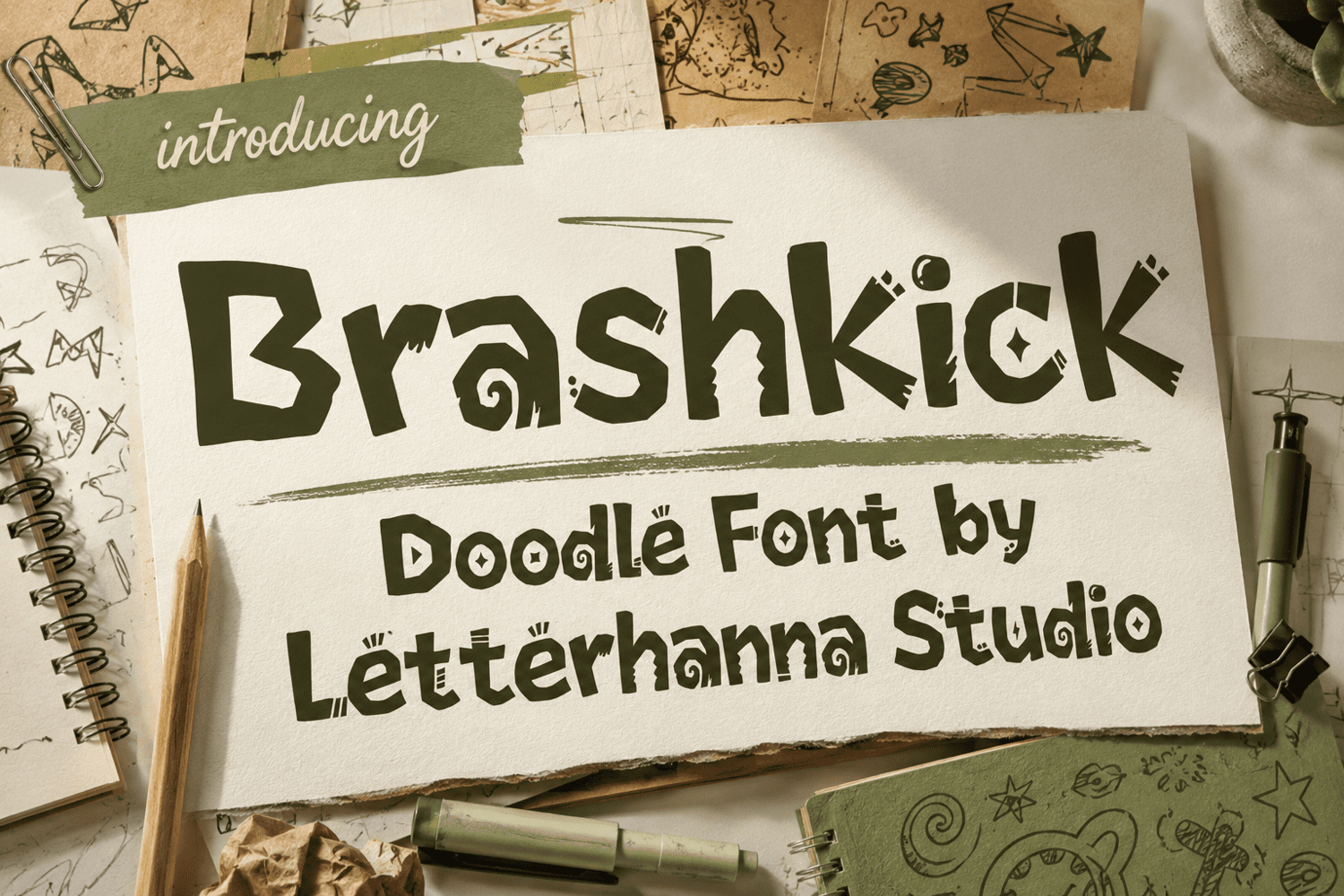
Brashkick Doodle Font: Bold, Rough, and Playfully Unusual
What happens when ordinary letters stop behaving like ordinary letters?
You get Brashkick.
Brashkick is an expressive Doodle Font created for designers who want typography with attitude. Its bold, irregular letterforms combine rough geometry, hand-drawn imperfections, quirky details, and unexpected shapes to create a typeface that immediately grabs attention.
It doesn't look like it came from a perfectly measured grid.
It looks alive.
When Perfect Typography Feels Too BoringClean fonts are useful. Elegant fonts have their place. But sometimes a design can become so polished that it loses its personality.
That's where Brashkick comes in.
Instead of hiding imperfections, this Hand drawn font style turns them into the main attraction. Letters have uneven edges, exaggerated structures, strange little cuts, decorative marks, and distinctive shapes that make the alphabet feel illustrated.
Every character seems to have its own attitude.
Some letters look sharp and aggressive. Others feel playful and eccentric. Together, they create a visual language that is difficult to ignore.
The Unexpected Beauty of ImperfectionBrashkick is inspired by the visual freedom of doodling, but it pushes the idea much further.
Traditional doodles can feel casual and spontaneous. Brashkick takes that spontaneity and combines it with a heavy display presence.
The result is a Doodle Font that can dominate a composition without requiring complicated graphic effects.
This is the mind-blowing part: sometimes a single expressive word can create more visual impact than an entire collection of decorative elements.
The typography itself becomes the artwork.
A Font Built for AttentionBrashkick is particularly suitable for projects that need to feel youthful, creative, alternative, handmade, or slightly rebellious.
Try it for:
- Streetwear and apparel graphics
- Stickers and merchandise
- Posters and event artwork
- Logo concepts
- Music covers
- Creative packaging
- Social media campaigns
- YouTube thumbnails
- Children's products
- Greeting cards
- Fun editorial headlines
Think of a sketchbook filled with strange ideas.
A marker moving too quickly.
A doodle becoming unexpectedly bold.
A playful drawing that refuses to stay inside the lines.
That is the personality of Brashkick.
It is quirky without being overly cute. Rough without feeling unfinished. Bold without losing its playful character.
Most importantly, it gives designers something that conventional fonts often struggle to provide: instant personality.
If your project needs a bold Doodle Font with a hand-drawn edge and an unmistakably unconventional personality, Brashkick is ready to kick predictable typography out of the frame.
Make your next headline louder, stranger, and more memorable with Brashkick.